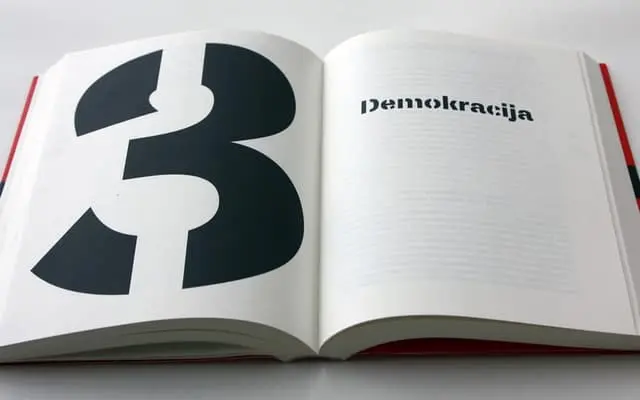
Plan Grotesque Stencil
A stencil adaptation of Plan Grotesque, offered in regular and condensed widths across four weights with matching italics.
Built on the skeleton of Plan Grotesque, this stencil variant introduces the characteristic interrupted strokes across Light, Regular, Medium and Bold weights, each with a corresponding italic. The family extends into a Condensed Stencil subfamily, giving it flexibility for poster and headline work at tighter column widths. Individual styles are named after cities, a naming convention consistent with the broader Plan Grotesque system.
A stencil variant of the Plan Grotesque family, retaining the grotesque sans structure but interrupted by stencil bridges throughout; classified as display due to the decorative stencil treatment that limits body text use.